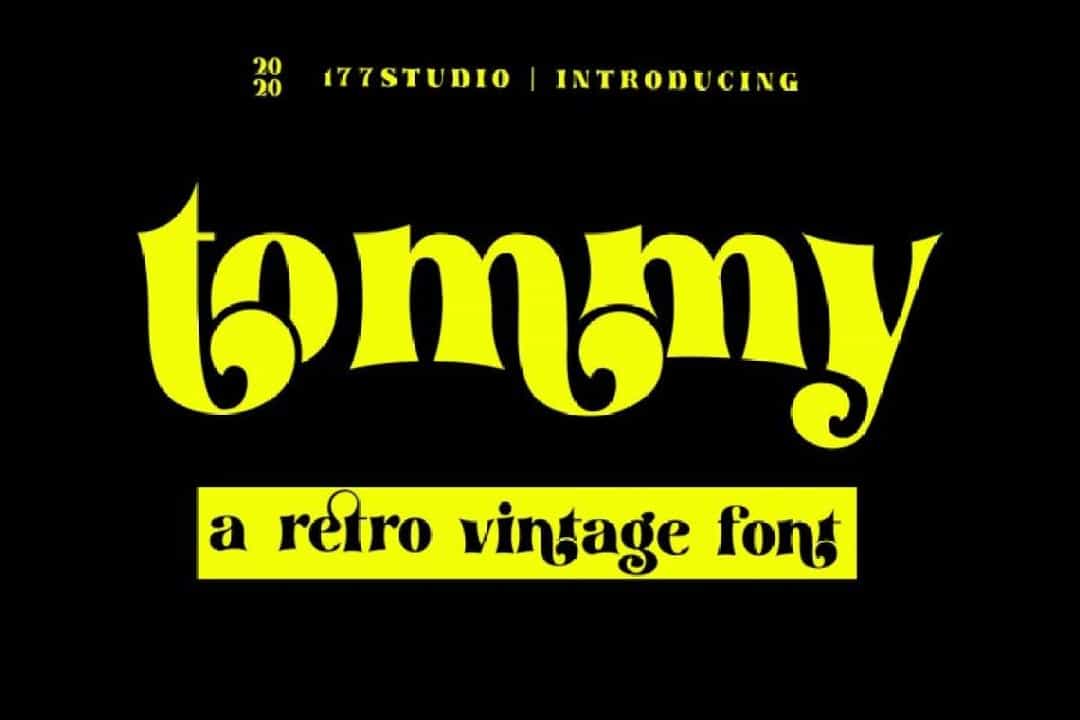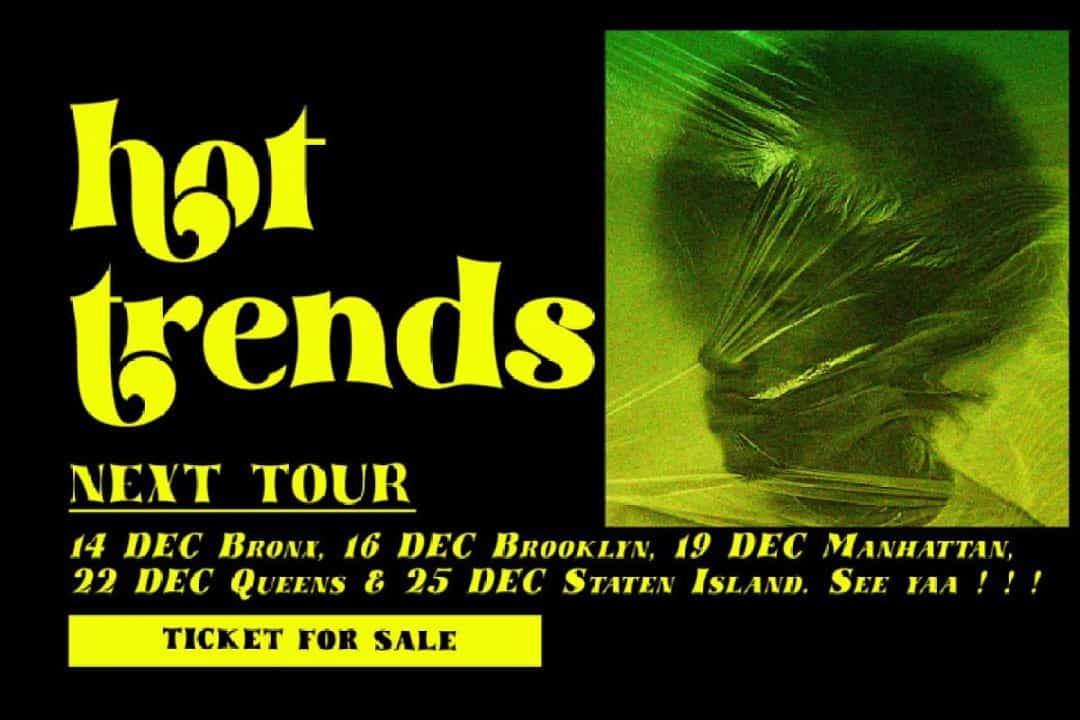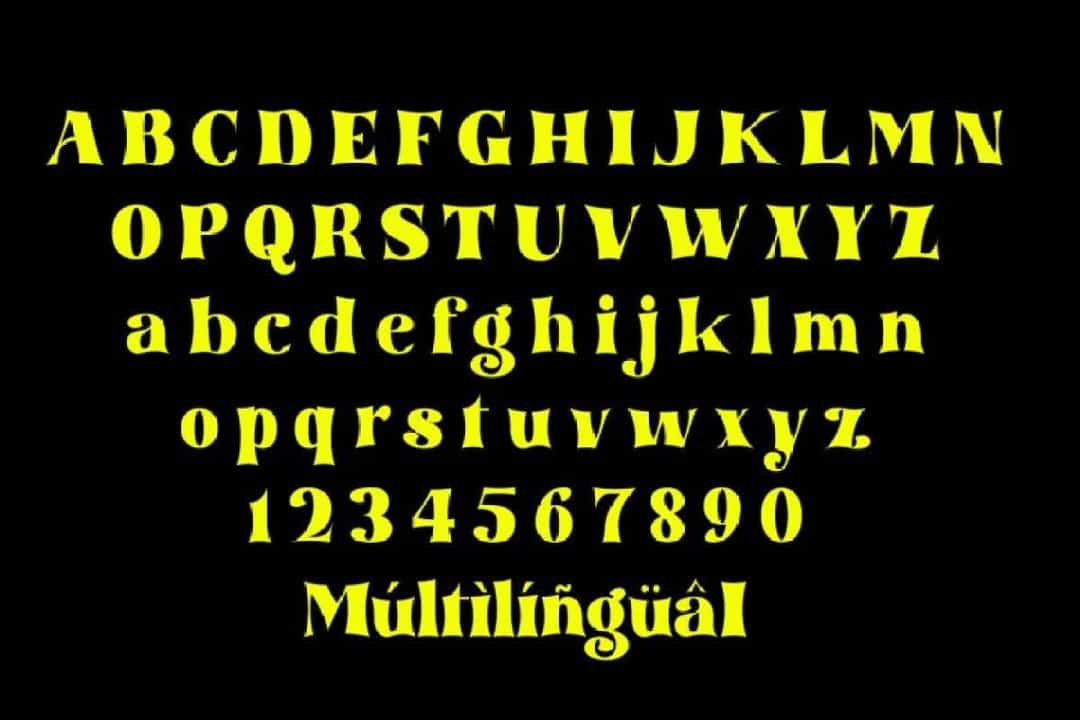
Discover Tommy Font, part of the Serif Retro Basic collection—a versatile and unique font perfect for adding a personal touch to your projects. Download it for free and enjoy crafting designs with style, from invitations to social media posts. This font is available exclusively for personal use, giving you the freedom to create without limits. Unlock your creativity with Tommy Font today!
Tommy is quite a sophisticated font but at the same time it has a traditional look to it. Sheriff that is perfect to combine with its complimentary sans font for the best result! Please let me present to you the great combination that I frequently use in my works – serifs and sans-serifs.